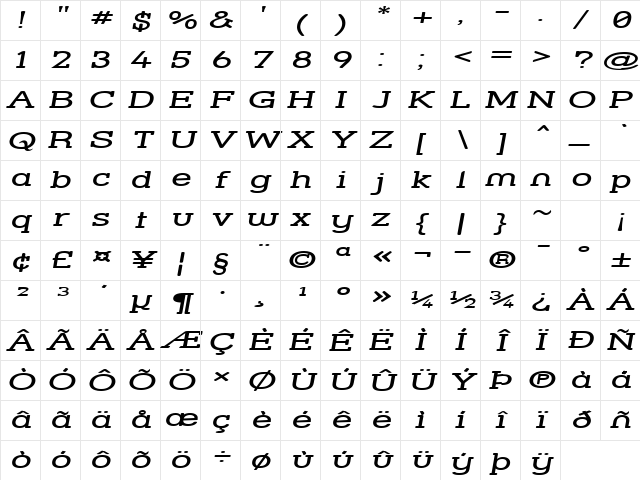
Complete Street Slab - Super Wide Italic glyph index. Displaying only characters natively supported by Street Slab - Super Wide Italic font.
Street Slab - Super Wide features prominent, blocky serifs that give it a confident, grounded presence - equally at home in editorial settings and bold branding work. The slanted form adds forward momentum and visual energy.
Pro Tip: Use Street Slab - Super Wide for headlines and subheadings where its slab serifs can make an impression. It also holds up well in mid-size body copy thanks to its sturdy construction.